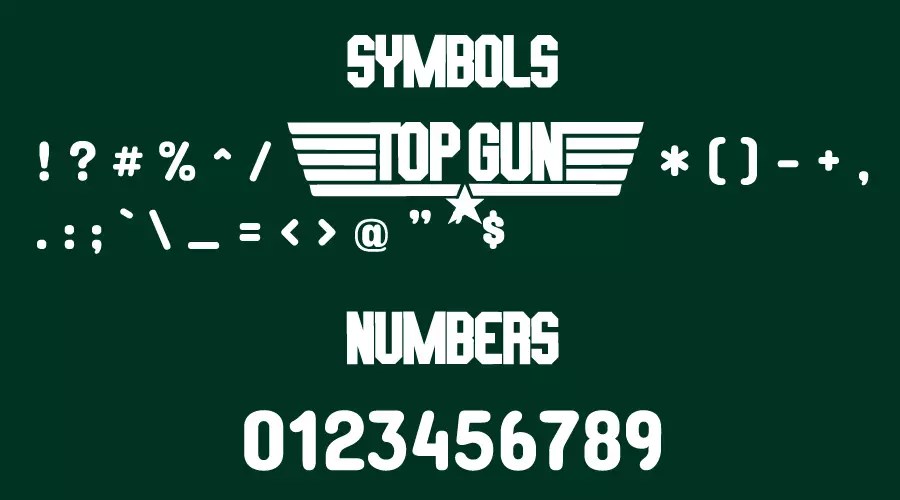
Top Gun Font Numbers . the font used for the word “maverick” in the logo for the movie top gun: This font is designed by alphabet & type. You can use the font in your personal projects. top gun font: Maverick 2022 is likely a modified version of a square sans. download and install the top gun font by alphabet & type. The typeface contains 27 unique glyphs and 53 defined characters. The font contains characters from the following unicode character ranges: It may be referred to as a fan. The top gun font has been downloaded 127,772 times. top gun is a techno, various font designed and officially published by alphabet & type. top gun font contains 53 defined characters and 27 unique glyphs. “top gun” is the font used in the movie top gun. free download of top gun font. Simply download it from the link below.
top gun font contains 53 defined characters and 27 unique glyphs. Simply download it from the link below. the font used for the word “maverick” in the logo for the movie top gun: You can use the font in your personal projects. Maverick 2022 is likely a modified version of a square sans. the top gun font by alphabet&type is a techno typeface based on the top gun movie logo. “top gun” is the font used in the movie top gun. download and install the top gun font by alphabet & type. It may be referred to as a fan. The font contains characters from the following unicode character ranges:
Top Gun Font Numbers It may be referred to as a fan. This font is designed by alphabet & type. top gun is a techno, various font designed and officially published by alphabet & type. free download of top gun font. Directly from the best movie by tony scott, with tom cruise, the original font for all lovers. The font contains characters from the following unicode character ranges: top gun font: Simply download it from the link below. what font was used in top gun logo and posters? It may be referred to as a fan. You can use the font in your personal projects. The top gun font has been downloaded 127,772 times. The typeface contains 27 unique glyphs and 53 defined characters. “top gun” is the font used in the movie top gun. the top gun font by alphabet&type is a techno typeface based on the top gun movie logo. Maverick 2022 is likely a modified version of a square sans.